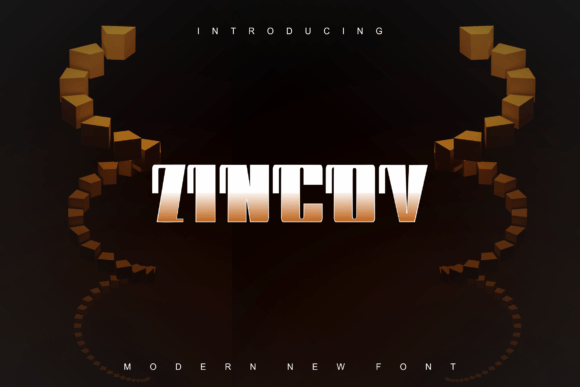
**Introducing Zincov: The Font That Makes Your Words Command Attention**
In a world saturated with noise, it's becoming increasingly difficult to capture attention and leave a lasting impression. But with Zincov, a modern, bold, and authentic slab serif font, you have the power to make your words leap off the page and demand notice.
**A Font Rooted in Strength and Confidence**
Zincov draws its inspiration from the sturdy structures of the industrial revolution, embodying the strength and resilience of steel beams and rivets. Its thick, unwavering serifs exude an air of confidence and authority, while its sharp, clean lines convey a sense of modernity and sophistication.
**Versatility That Knows No Bounds**
Whether you're crafting a compelling logo, designing a t-shirt that speaks volumes, or creating an immersive display for your brand, Zincov is your trusty companion. Its adaptability shines in a myriad of contexts, effortlessly elevating your designs to new heights.
**The Perfect Choice for Modern Resumes**
In today's competitive job market, a resume is often the first impression you make on a potential employer. With Zincov, you can create a resume that stands out from the crowd, showcasing your skills and experience with unparalleled impact. Its bold presence commands attention, while its sharp details ensure your qualifications are presented with clarity and precision.
**Feel the Difference with Zincov**
Zincov is more than just a font; it's an experience. It's the feeling of confidence as you watch your words come to life with newfound power. It's the satisfaction of knowing that your designs are making a statement, leaving an indelible mark on the minds of your audience.